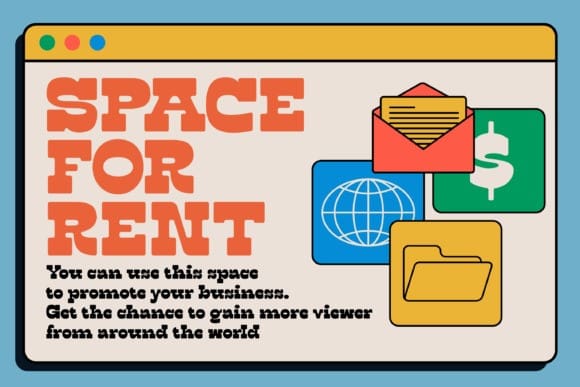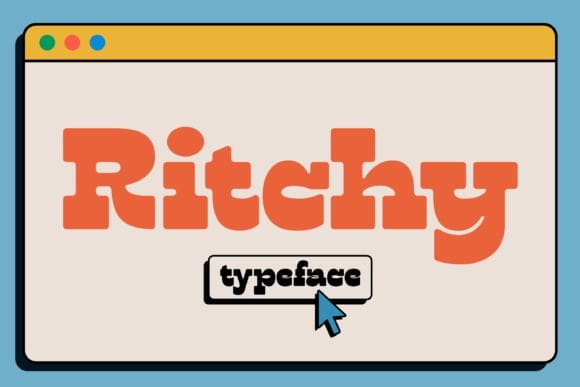
Ritchy Display Font
Ritchy Display Font is a Pop, western, and retro typeface with fun vibes. Inspired by retro bold typography. Ritchy feels playfully nostalgic and delivers an incredible vintage retro aesthetic. This font is perfect for a design that requires a playful and fun accent. Ritchy Display Font is suitable for book covers, posters, packaging, merchandise, logotypes, font logos, stickers and much more. Use this display font to add that special retro touch to any design idea you can think of!